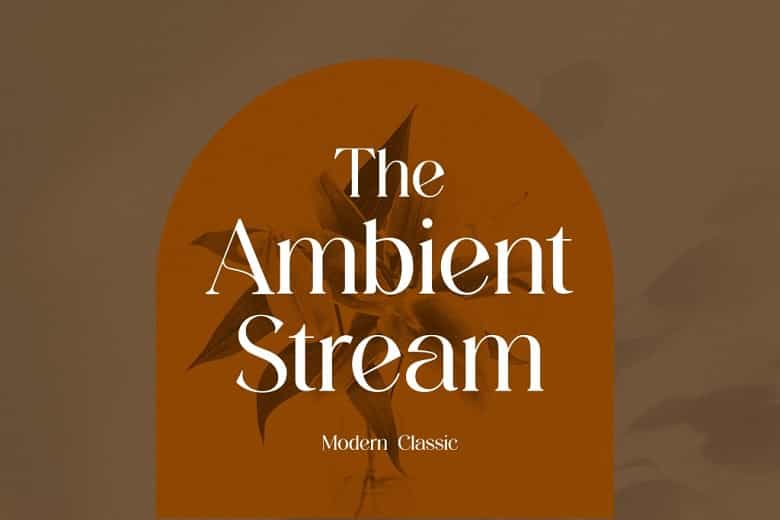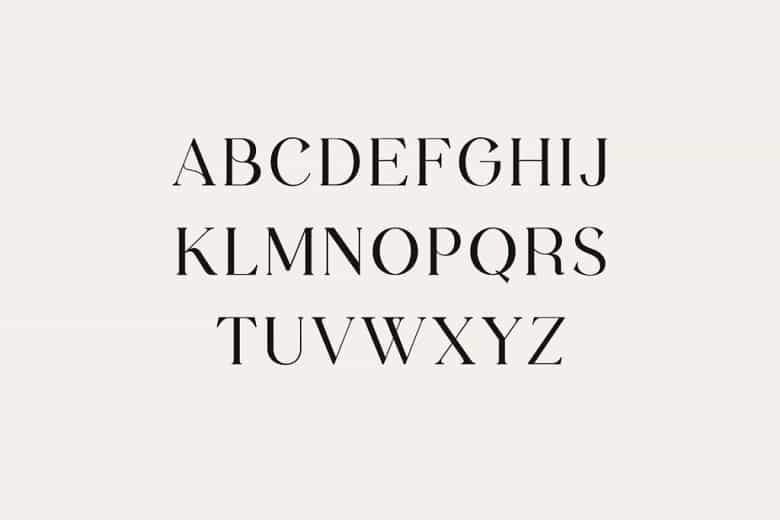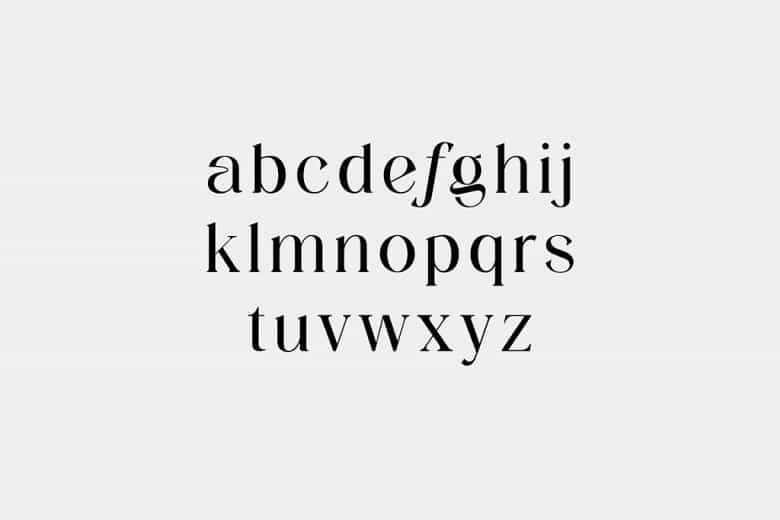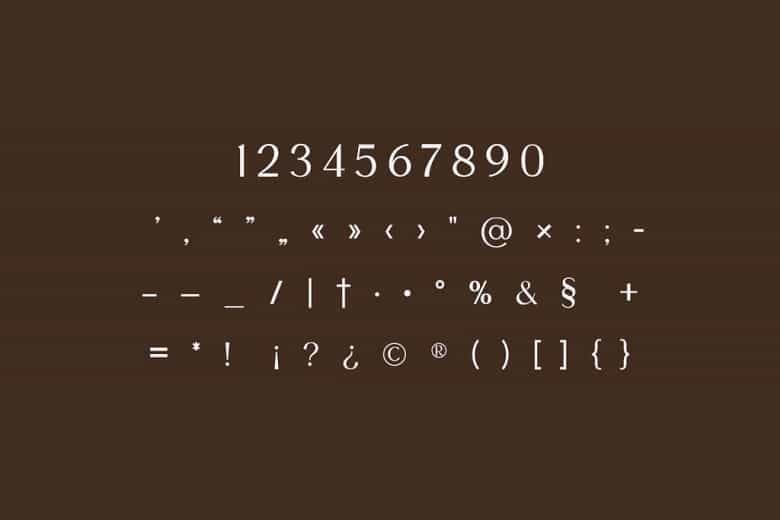
The Ambient Stream is a modern classic serif font. It is best used in signature, stationery, logo, wedding, typography quotes, magazine or book covers, website headers, branding, and many more.